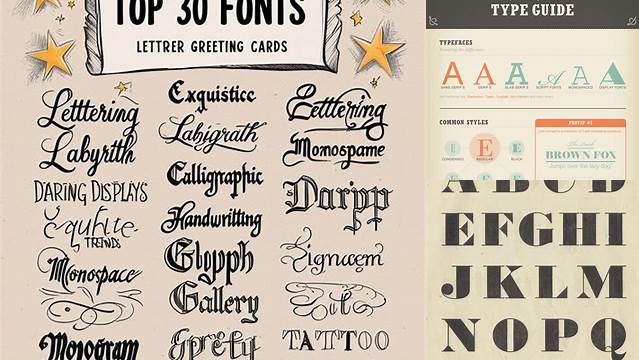
Alphabet Fonts: Choosing The Right Font Styles
Hey guys! Ever found yourself staring at a blank document, paralyzed by the sheer number of font choices? Or maybe you're a seasoned designer looking to level up your typography game? Either way, you've come to the right place. Today, we're diving deep into the awesome world of alphabet font styles. We'll explore different font families, their characteristics, and how to choose the perfect font for your project. Get ready to unlock the secrets of typography and make your words pop!
Understanding the Basics of Alphabet Font Styles
Alright, before we jump into the nitty-gritty, let's lay some groundwork. What exactly are alphabet font styles? Simply put, they're the different ways we can represent the letters of our alphabet. Each style has its own unique personality, history, and purpose. They're not just about aesthetics; they also affect readability, tone, and the overall message you're trying to convey.
Think of it like this: you wouldn't wear a tuxedo to the beach, right? Similarly, you wouldn't use a playful, cartoonish font for a serious legal document. Choosing the right font is all about matching the style to the content and the audience. There are tons of different types of fonts, and knowing a little bit about each one will help you make smart choices. We'll be talking about the main categories of font styles later on. But it's super important to understand that each font has a different purpose. Some fonts are great for headings, some for body text, and some are purely for display. Don't just pick a font randomly. Think about what you're trying to achieve.
One of the most important things to consider is readability. Can people easily read the font, or do they have to squint? Serif fonts, with their little feet or strokes at the ends of the letters, are often considered more readable for body text because the serifs help guide the eye across the page. On the other hand, sans-serif fonts, which lack those serifs, are often preferred for headings and on-screen reading because of their clean, modern look. Keep in mind that a legible text is super important for making sure your audience enjoys reading your text. Using a font that's too small, or using an unusual font can make your content difficult to read. Then you might as well not have bothered in the first place. Pay attention to the font size! It can have a massive impact on readability. If it’s too small, nobody will be able to read it. If it’s too large, it can look unprofessional or create a lot of empty space. And if it's too large, you will have a problem with your content. So it's important to choose the right font size. Let's get started, shall we?
Exploring Different Font Families and Their Characteristics
Now, let's get down to the fun part: exploring different font families! These are the broad categories that group fonts with similar characteristics. Understanding these families will give you a solid foundation for choosing the right font. They all serve a purpose and each one has its strengths and weaknesses. Let's have a look at some of the most popular ones.
Serif Fonts: These are the OG fonts, the ones with the little strokes (serifs) at the ends of the letters. Think of them as the classic, trustworthy fonts. They often evoke a sense of tradition, elegance, and authority. Popular serif fonts include Times New Roman, Garamond, and Georgia. Serif fonts are often favored for body text because the serifs help guide the eye across the page, making them easier to read in large blocks of text. They can give a sense of experience. Using a serif font for the headings can also work as well. It all depends on what style you're going for.
Sans-Serif Fonts: As the name suggests, sans-serif fonts lack the serifs. They have a clean, modern look and feel. They're often associated with simplicity, clarity, and modernity. Popular sans-serif fonts include Arial, Helvetica, and Open Sans. These fonts are great for headings, especially online, as they tend to be easier to read on screens. They're also commonly used for body text. It depends on the font. Some of them are legible, others are not. If you're using it for body text, make sure to get a legible sans-serif font! They can give a sense of modernity. It is a good font to use if you want to keep things simple.
Monospace Fonts: These fonts are characterized by having all letters and characters take up the same amount of horizontal space. Think of a typewriter – each letter takes up the same width. Monospace fonts are often used for coding, where precise alignment is important. Popular monospace fonts include Courier New and Monaco. It gives a sense of reliability.
Script Fonts: Script fonts mimic handwriting, giving a more personal and elegant touch. They can range from formal to casual, depending on the style. They are more often used for display and for a sense of elegance. Popular script fonts include Brush Script MT and Lobster. Script fonts can be super effective for certain projects, especially when you want to create a feeling of sophistication or personalization. But be careful with these, because they can also be tricky to read, especially in large blocks of text. They need to be legible to look great.
Display Fonts: This is a broad category that includes fonts that are designed for headlines, titles, and other display purposes. They're often more decorative and expressive than other font families. This is where things get interesting. The type of fonts can vary from very modern to very traditional. They are fonts which are designed to make a statement, so they're often larger, bolder, or more unique. You will find a wide range of different display fonts. There's something for every project. Make sure to pick the right display font that will complement your project and reflect your message. These are for a display.
Choosing the Right Font: A Practical Guide
Okay, so you've got a basic understanding of the different font families. Now comes the most exciting part: actually choosing a font! Here's a practical guide to help you make informed decisions.
Conclusion: Mastering Alphabet Font Styles
So there you have it! A comprehensive guide to alphabet font styles. By understanding the different font families, considering your audience and message, and following these tips, you'll be well on your way to creating stunning and effective designs. Keep experimenting, keep learning, and most importantly, have fun! Typography is an art form, so embrace your creativity and let your words shine. That's it, folks! I hope you enjoyed this guide. Now go forth and create some awesome designs! If you're looking to learn even more, there's a huge amount of resources online and in books about typography. So never stop learning! Keep up with new trends.